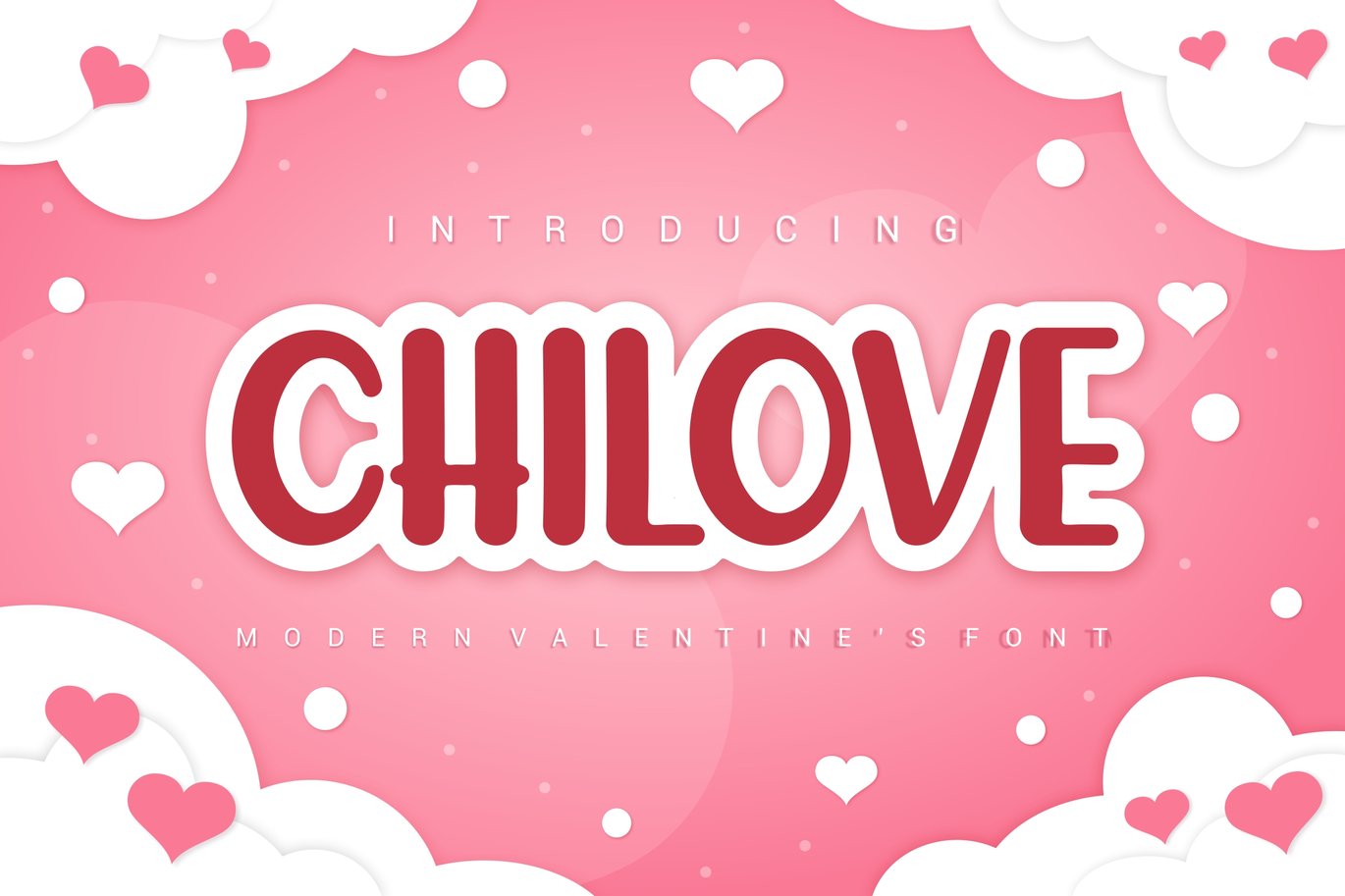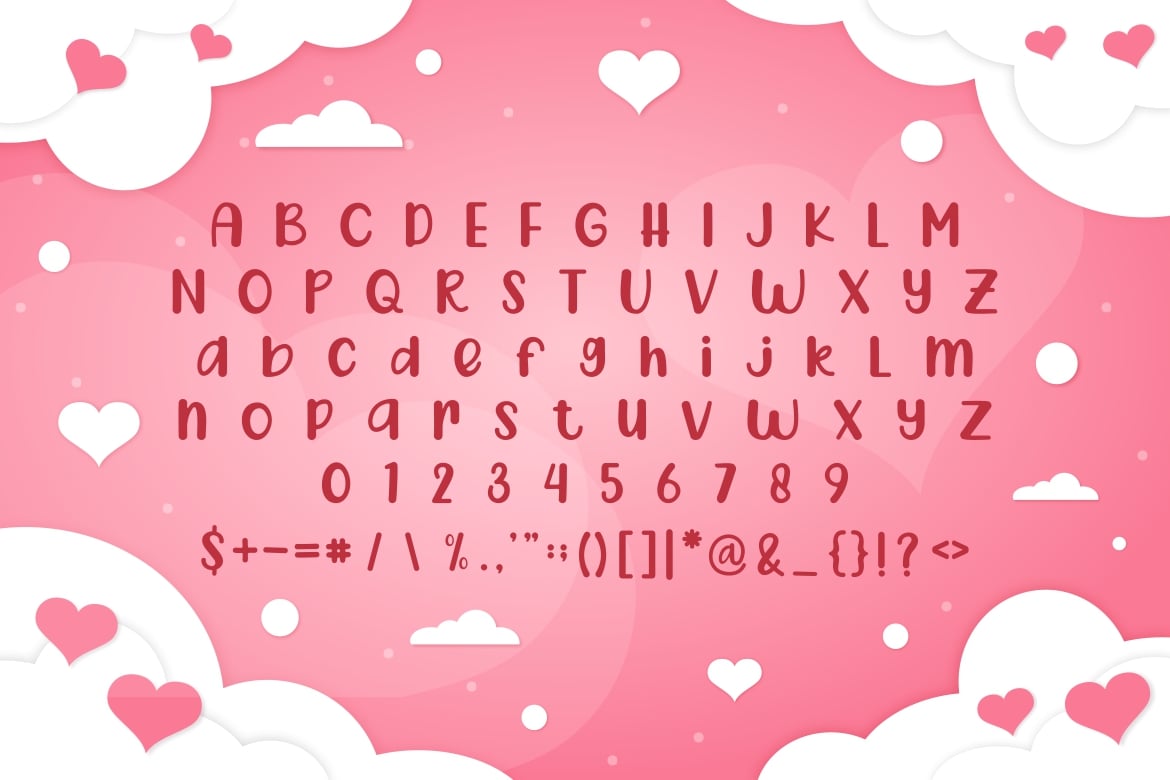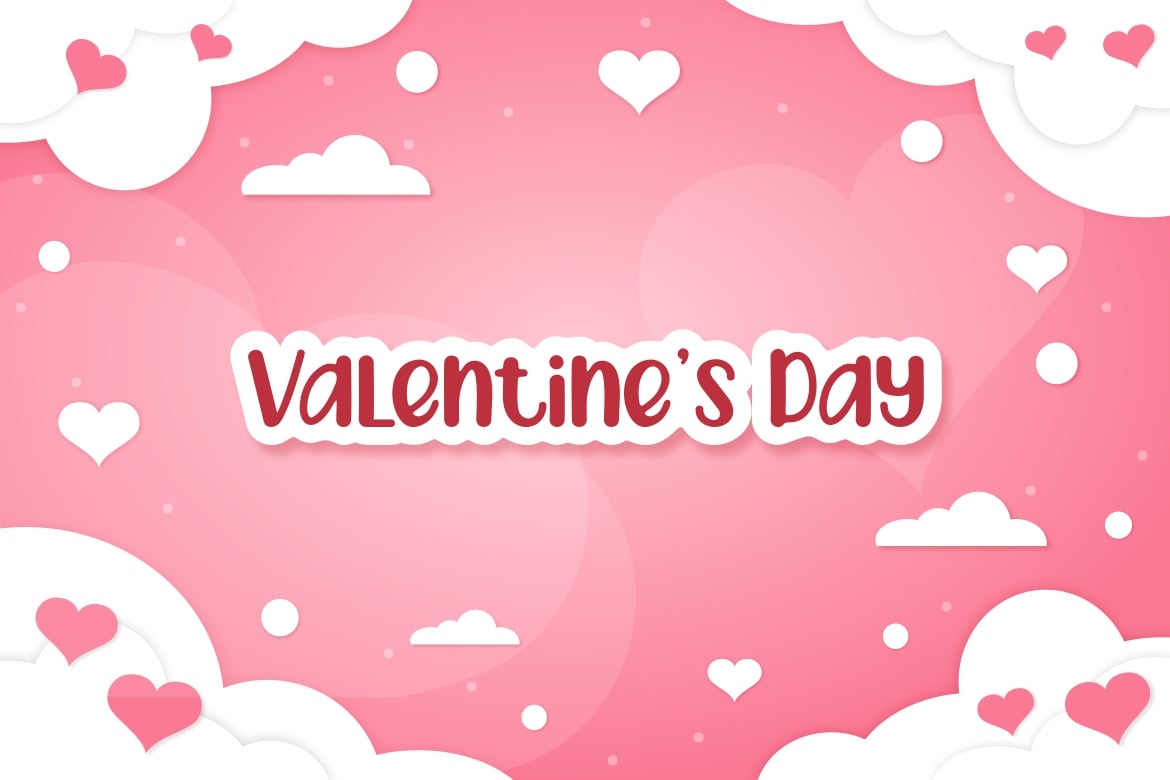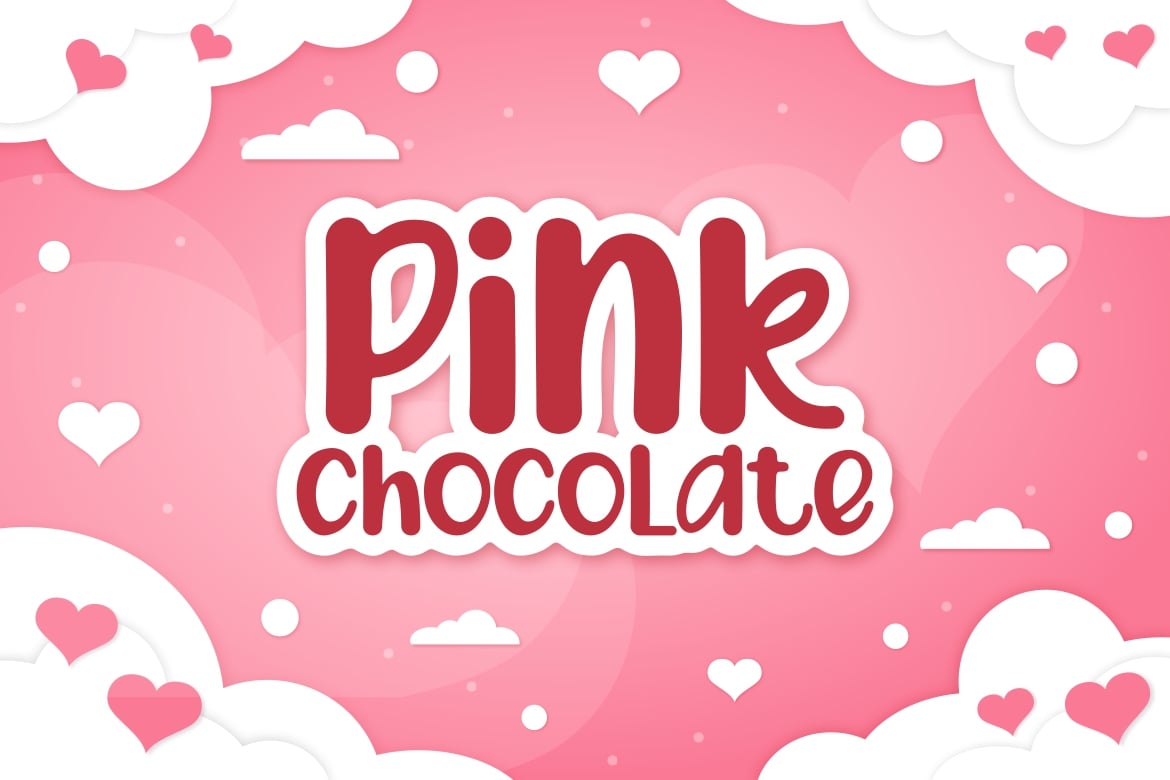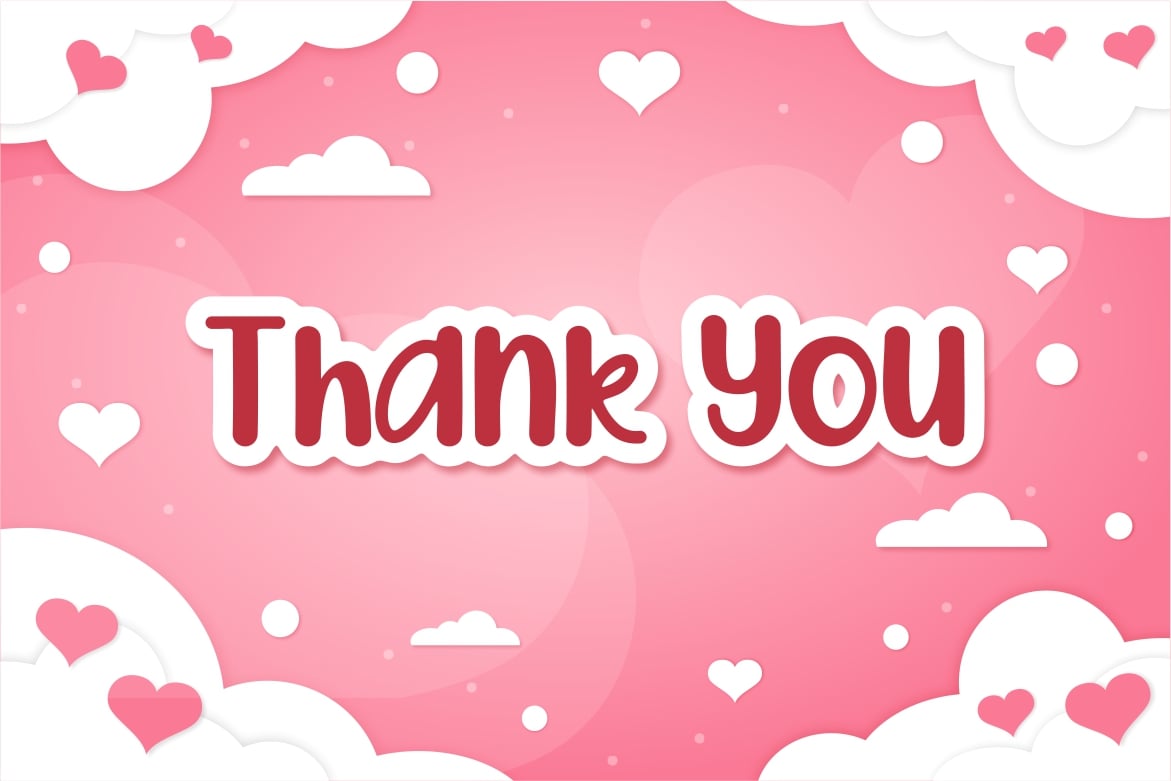
CHILOVE – Modern Valentine’s Font
Introducing our new product CHILOVE – Modern Font
CHILOVE is a bold, modern display font with playful flair, ideal for attention-grabbing headlines, logos, and diverse design projects. Versatile and readable in both digital and print, CHILOVE adds a dynamic touch to your message.